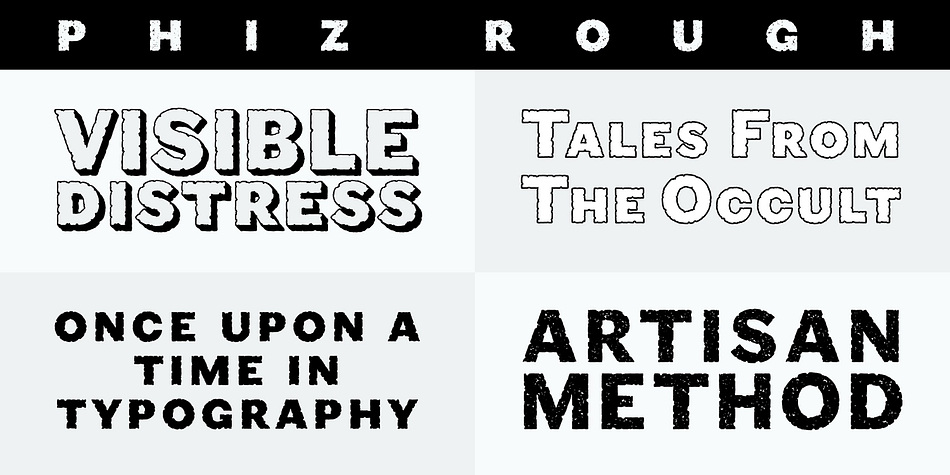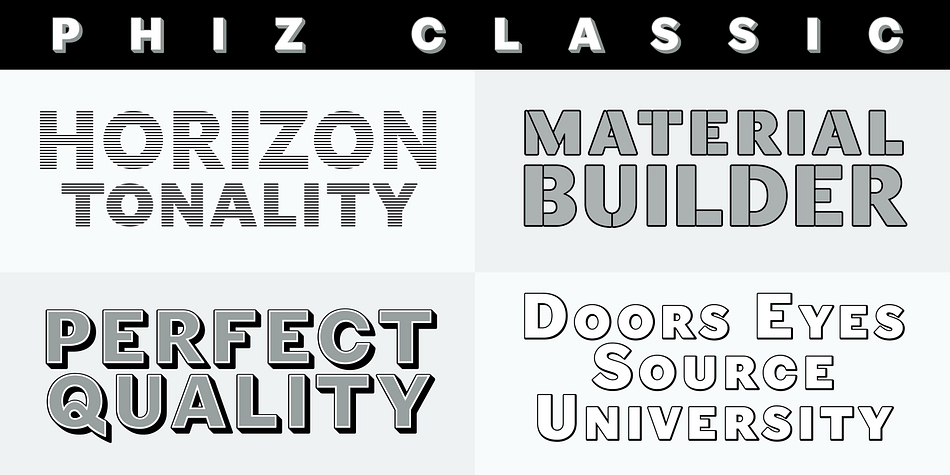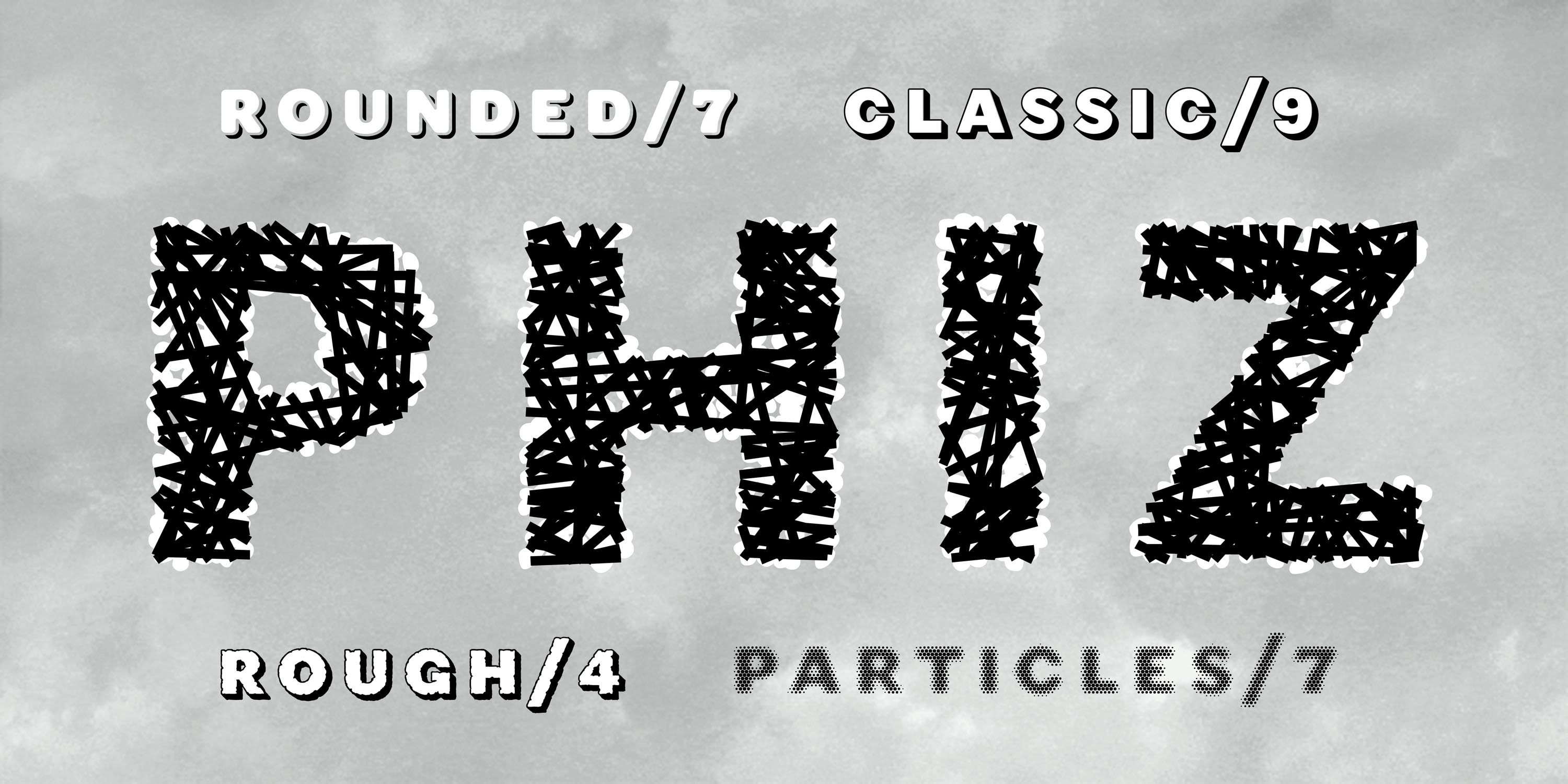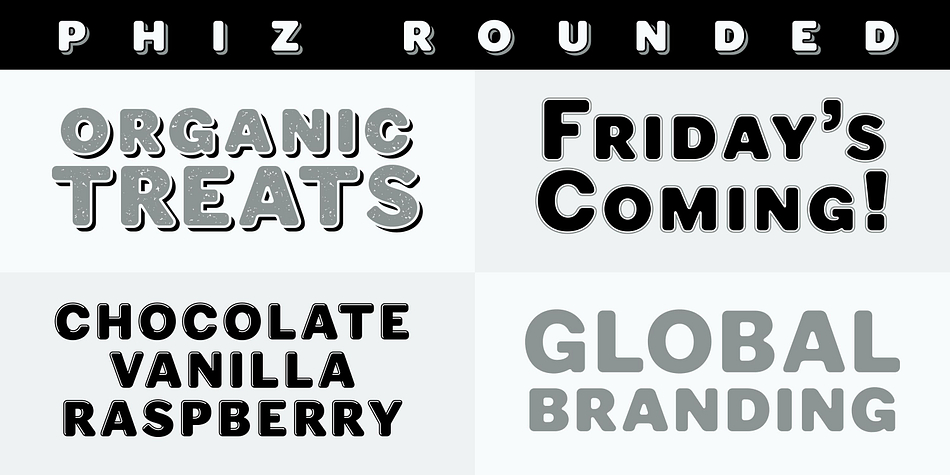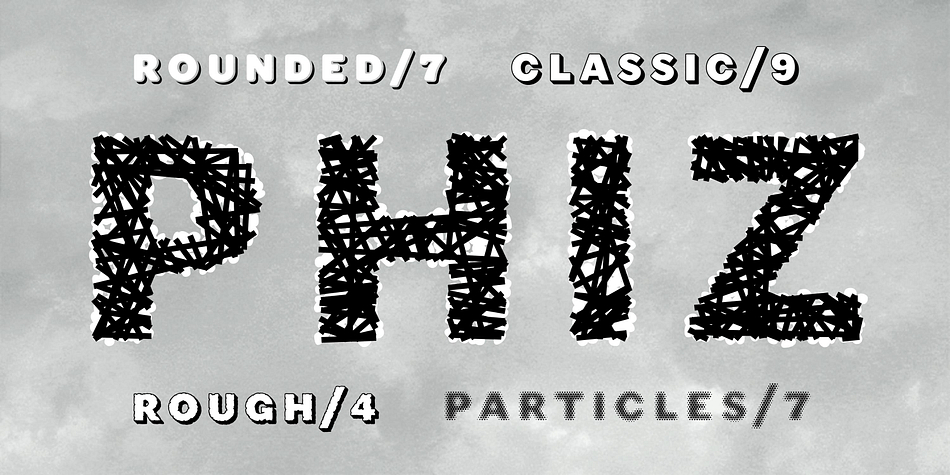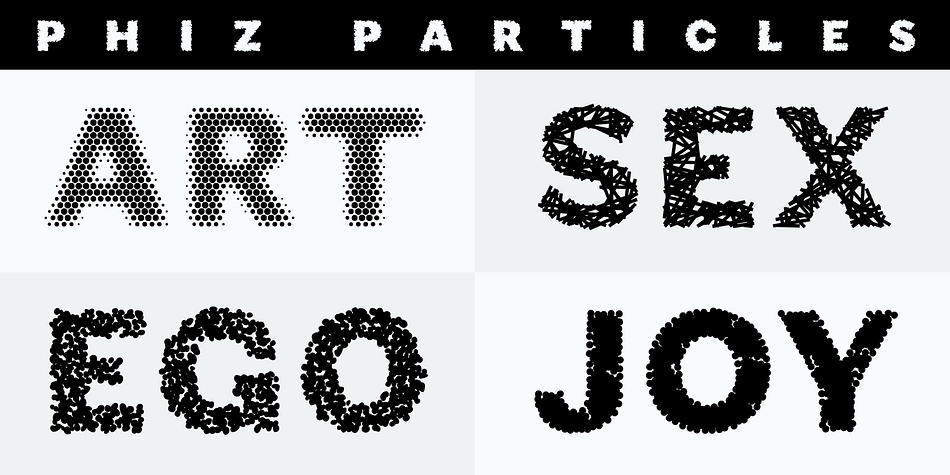
Designed by Nick Shinn, Phiz® is a display sans, hand display and stencil font family. This typeface has twenty-seven styles and was published by Shinntype.
Phiz is a diverse suite of 27 decorative fonts all based on Shinntype’s Figgins Sans Extra Bold.
There are four sub-families: Classic (9 fonts), Rounded (7 fonts), Rough (4 fonts) and Particles (7 fonts).
While the Classic styles hark back to the 19th century and the Rounded and Rough styles are thoroughly modern, the Particles styles emanate from the future. These irregular type designs occupy a unique niche—neither casual and hand-drawn, nor imitating distressed printing (e.g. the “rusty” look). They were conceived and executed as complex algorithmically-generated graphic procedures, in which repetitive elements were artfully applied to the Sans capitals and manually nuanced. As such they also differ substantially from textured glyph shapes that have been cut out from larger pattern fields, for the constituent particles are disposed in relation to the specific shape of each character they define.
The caps-with-small-caps format was chosen for two reasons. Firstly, titling display usage is predominantly capitals, and secondly, rather like optical scaling, having the same resolution of texture available in two different “sizes” (upper and lower case) should prove useful in the hierarchy of page layout—not primarily for setting upper and lower case text as caps-with-small-capitals, although this is of course an option. Figures and major symbols (punctuation and currency) are provided in both cap and small cap height.
All Phiz fonts have the same metrics and kerning, facilitating layering.